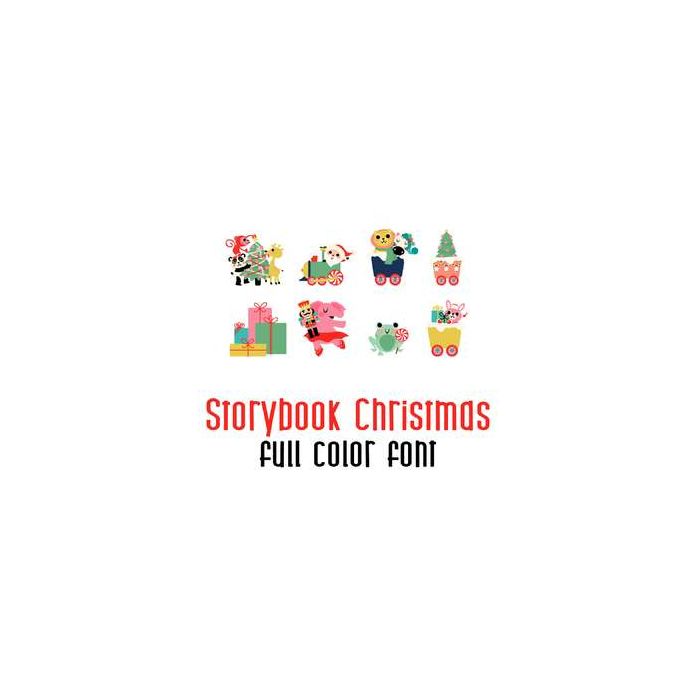
This adorable full color doodlebat font features adorable Christmas imagery. Perfect for cards, crafts, gifts, decor, scrap book pages, planner stickers and more!